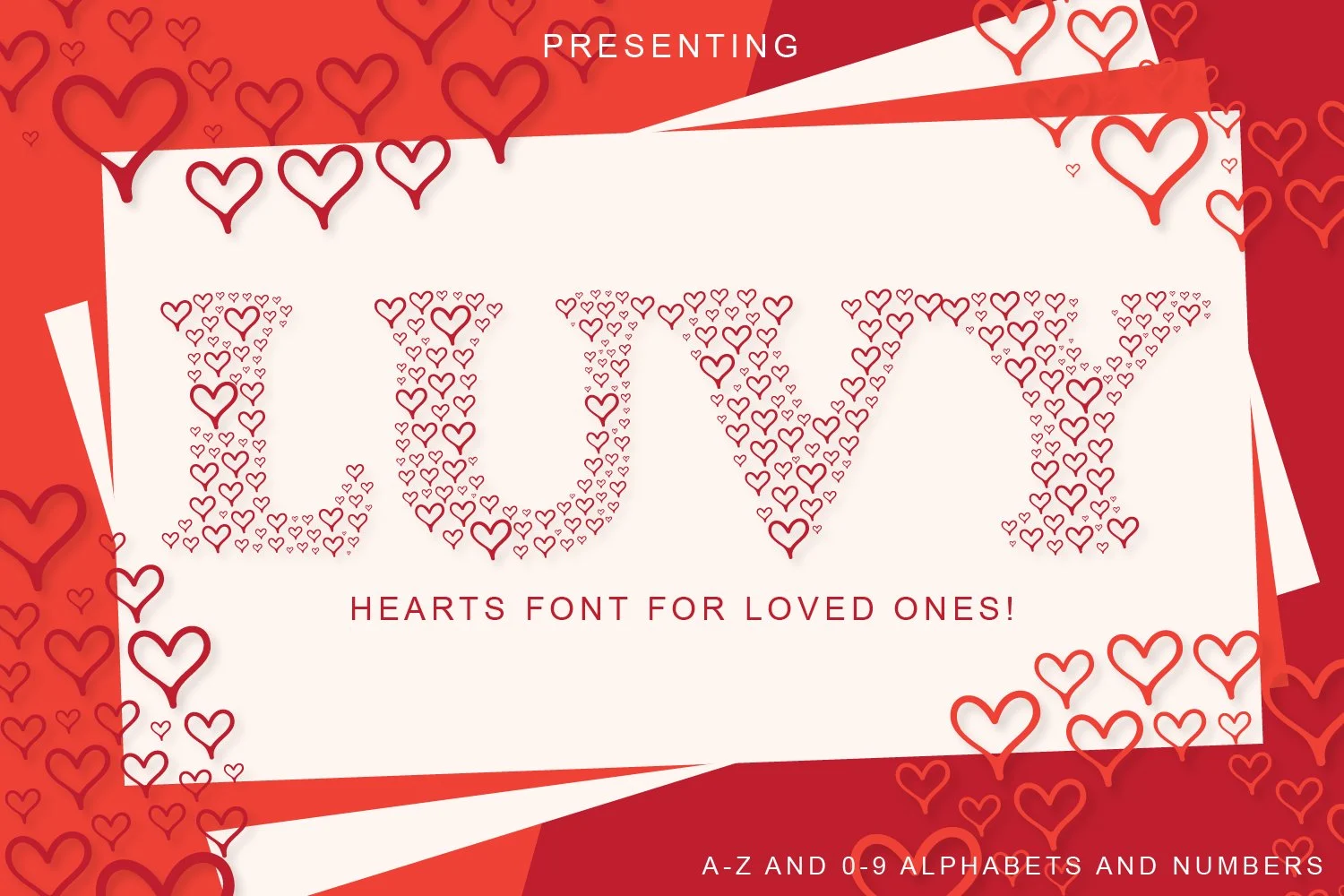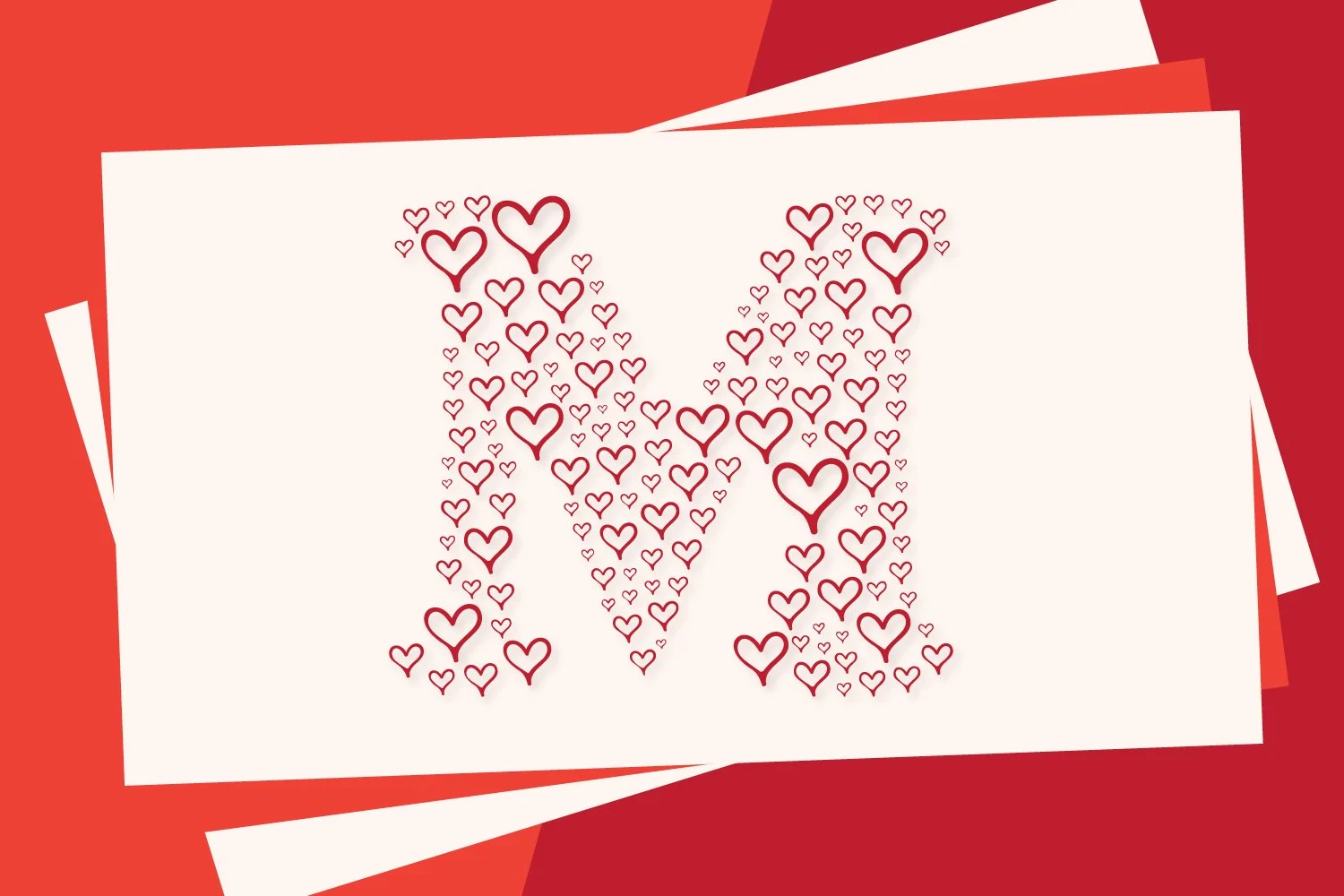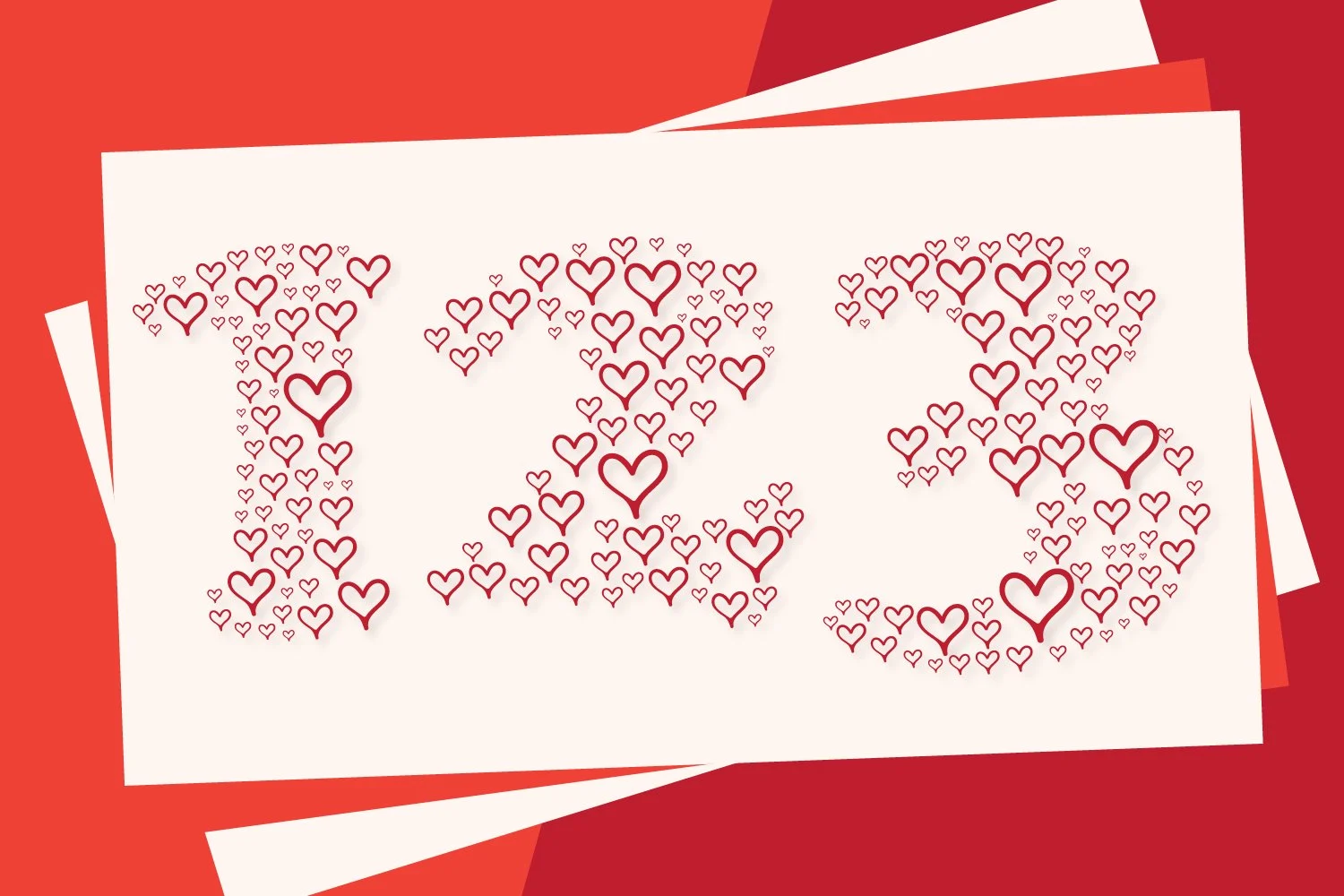
What is Luvy – A Cute Hearts Font for Loved Ones!?
Luvy – A Cute Hearts Font for Loved Ones! You can create lots of things using this font including logos, use in Cricut machines etc for your parties like birthdays, fun projects, and making monograms. This font is ready to help you in every situation.
Features:
This Font has Letters A-Z and 0-9 Only